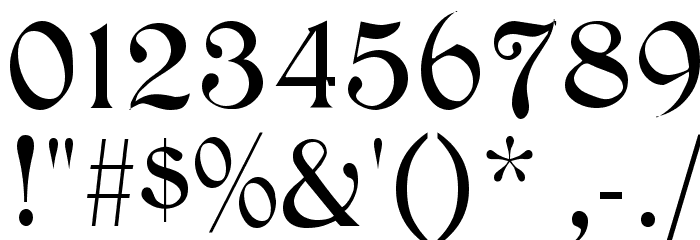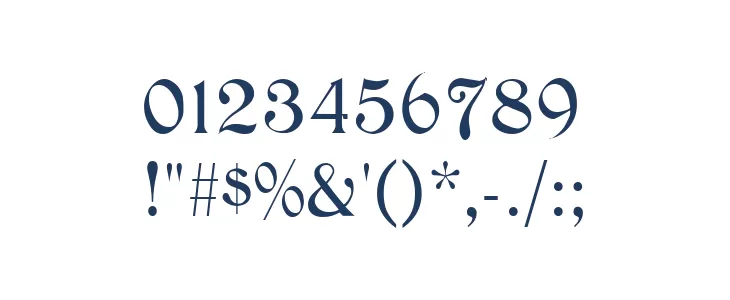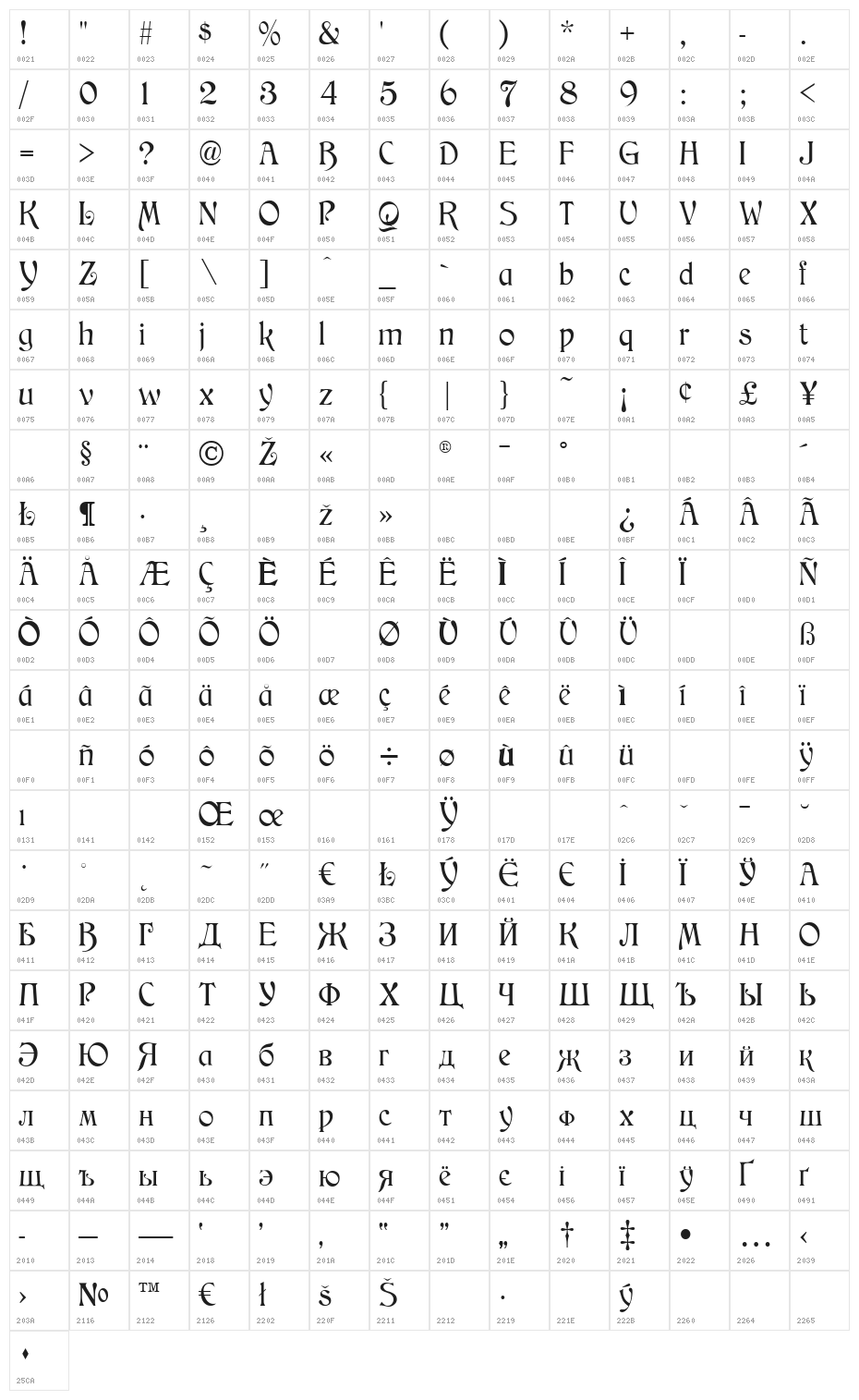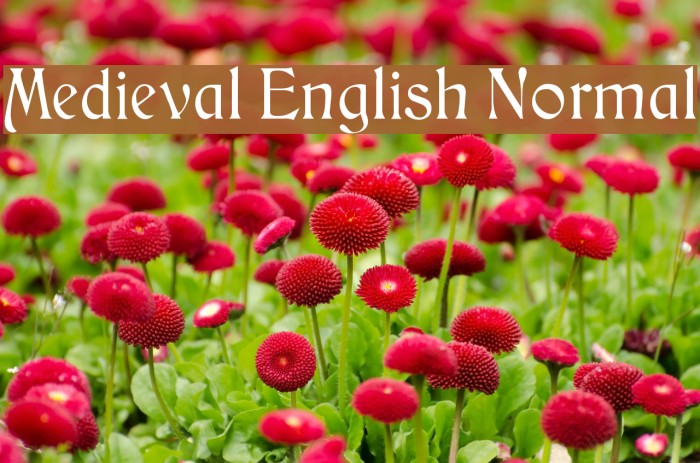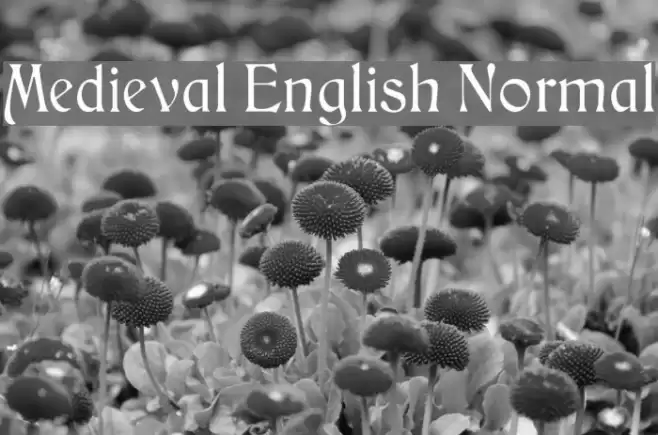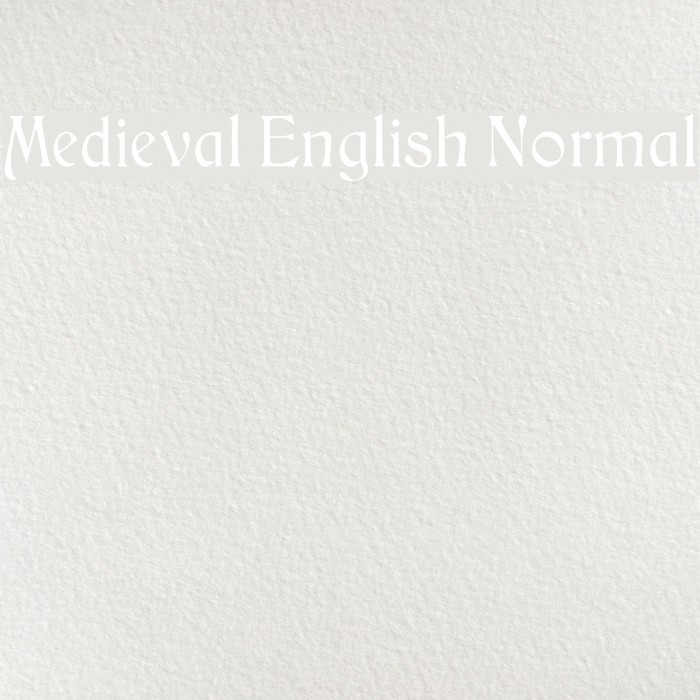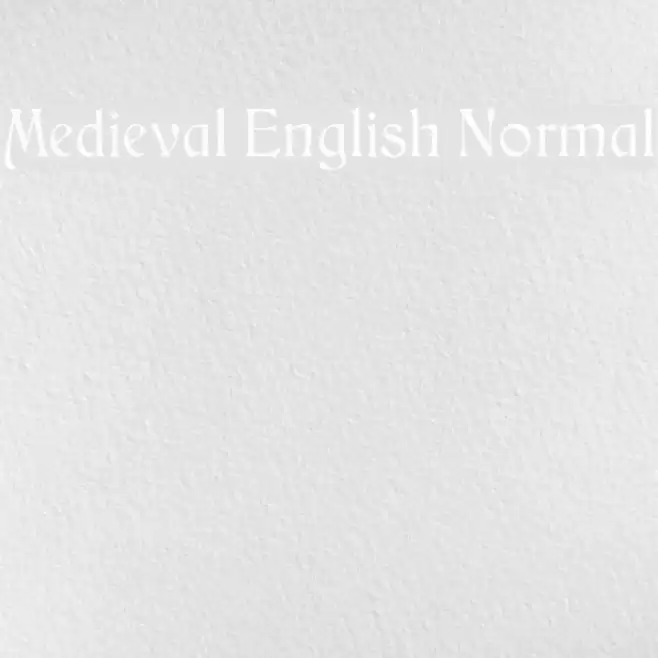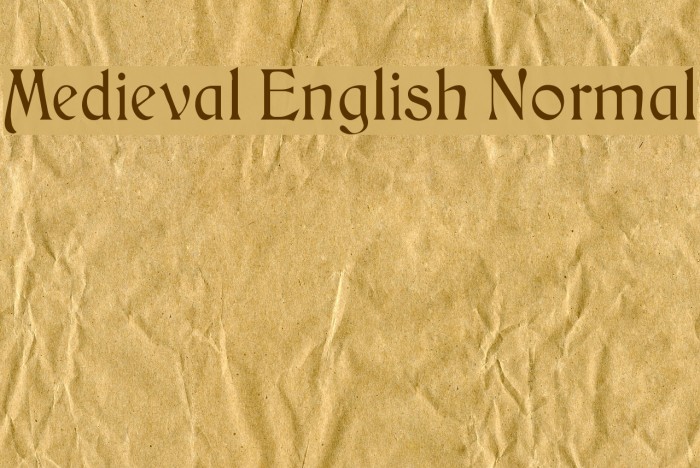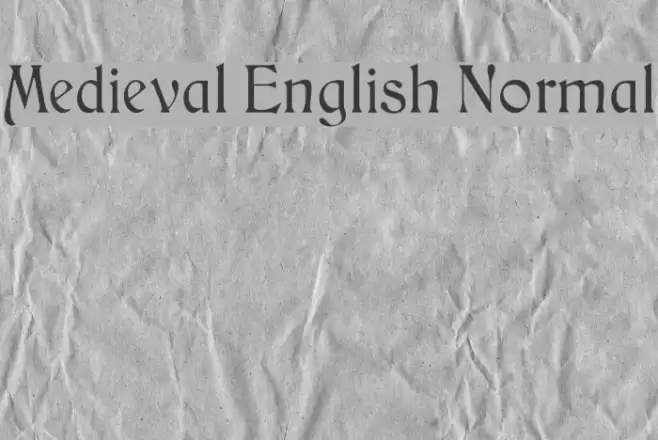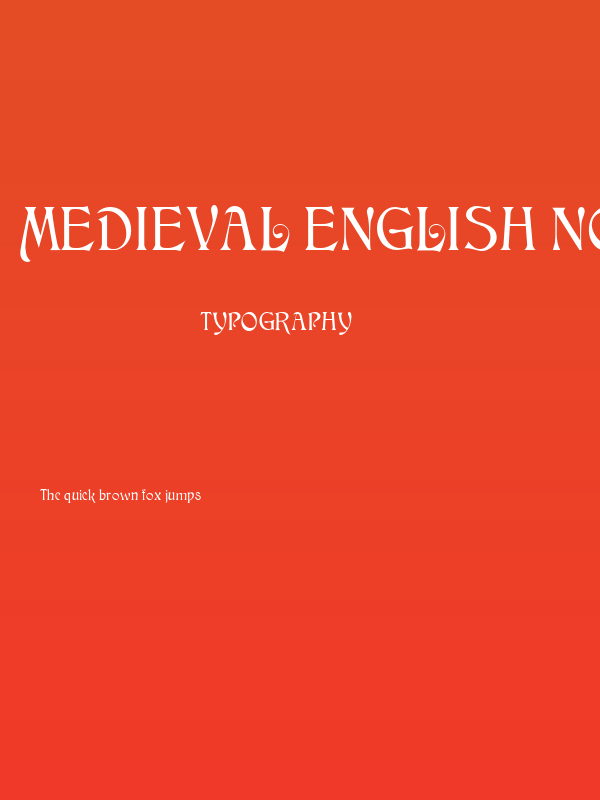
Medieval English Normal Font
Medieval English Normal Description
This font exudes a medieval charm with its intricate and ornate design, reminiscent of historical manuscripts. The uppercase letters feature elegant curves and flourishes, particularly noticeable in characters like 'Q' and 'R'. The lowercase letters maintain a consistent style, with unique elements such as the looped 'g' and the distinctive 'f'. Numerals are bold and stylized, adding to the font's decorative appeal. Special characters are equally ornate, with symbols like '&' and '%' showcasing elaborate detailing. Overall, this font captures the essence of medieval script with a modern twist, making it suitable for projects that require a touch of historical elegance.
| Proposed Projects | Ideal for historical-themed designs, book covers, invitations, and branding that requires a classic touch. |